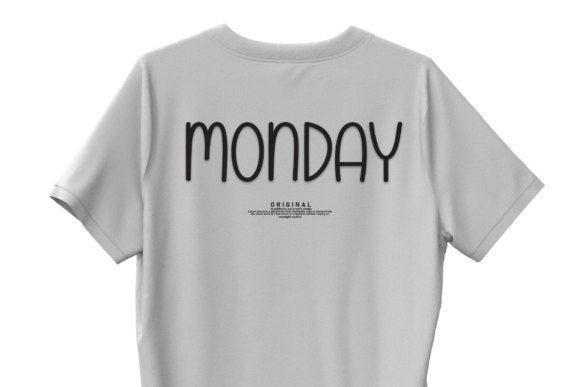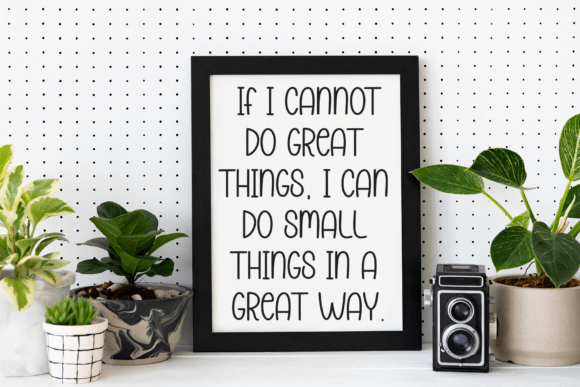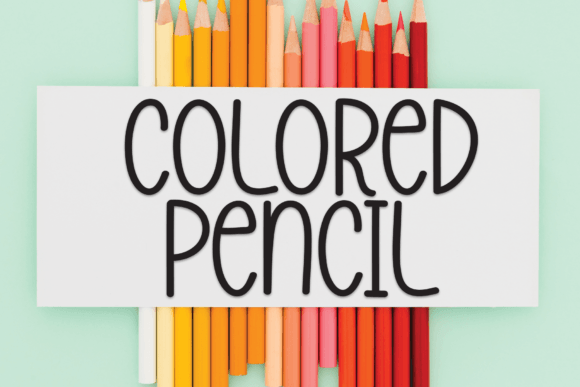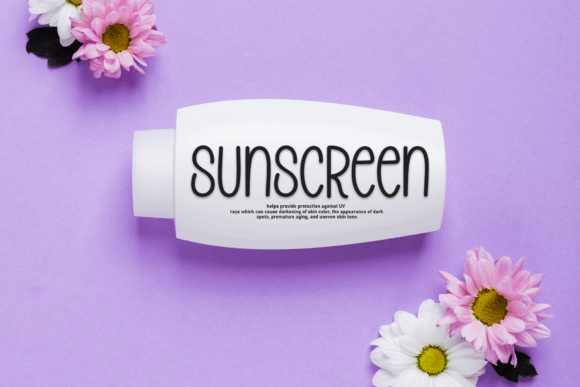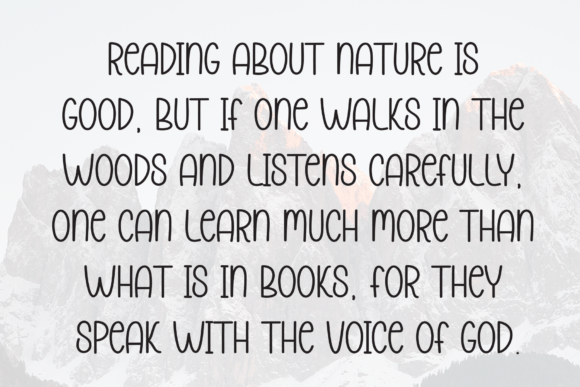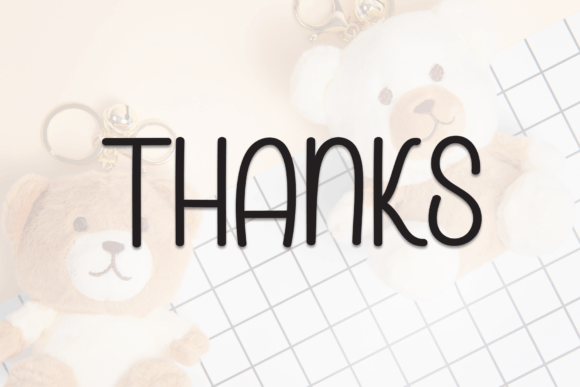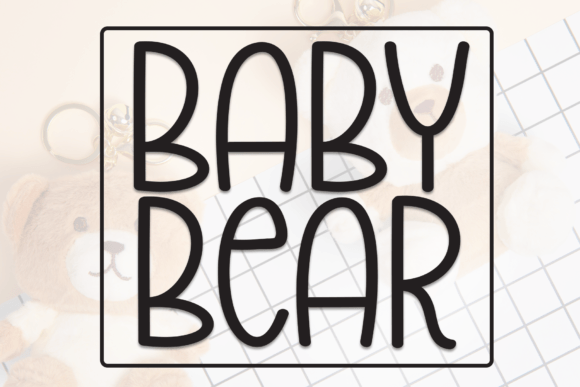
Baby Bear Font: The Sweet and Friendly Handwritten Font for Your Designs
Are you looking for a font that can add a touch of sweetness and friendliness to your designs? Look no further than the Baby Bear Font! This adorable handwritten font is perfect for creating wedding invitations, cards, and other designs that require a fun and playful touch.
What is Baby Bear Font?
Baby Bear Font is a sweet and friendly handwritten font that is designed to bring a smile to your face. Its cute and fun style makes it ideal for a variety of design projects, from wedding invitations and cards to posters, flyers, and more.
Characteristics of Baby Bear Font
The Baby Bear Font has several characteristics that make it stand out from other fonts. Here are a few:
- Handwritten style: The Baby Bear Font has a beautiful, handwritten style that gives it a personal and friendly touch.
- Cute and fun: The font is designed to be cute and fun, making it perfect for designs that require a playful touch.
- Easy to read: Despite its playful style, the Baby Bear Font is easy to read, making it perfect for body text and other applications where legibility is important.
- Versatile: The font is versatile and can be used for a variety of design projects, from wedding invitations and cards to posters, flyers, and more.
Uses of Baby Bear Font
The Baby Bear Font is perfect for a variety of design projects, including:
- Wedding invitations: The font’s sweet and friendly style makes it perfect for wedding invitations, save-the-date cards, and other wedding-related designs.
- Cards: The Baby Bear Font is great for creating birthday cards, thank-you cards, and other types of greeting cards.
- Posters and flyers: The font’s playful style makes it perfect for creating posters and flyers for events, promotions, and other applications.
- Social media graphics: The Baby Bear Font can be used to create social media graphics, such as Facebook posts, Instagram graphics, and Twitter headers.
Why Choose Baby Bear Font?
There are many reasons why you should choose the Baby Bear Font for your design projects. Here are a few:
- Unique style: The Baby Bear Font has a unique style that will set your designs apart from others.
Tips for Using Baby Bear Font
Here are a few tips for using the Baby Bear Font in your designs:
- Use it for headings and titles: The Baby Bear Font is perfect for headings and titles, where its playful style can really shine.
- Pair it with other fonts: The font pairs well with other fonts, so feel free to experiment with different combinations.
- Use it for body text: The Baby Bear Font is easy to read, making it perfect for body text and other applications where legibility is important.
The Baby Bear Font is a sweet and friendly handwritten font that is perfect for adding a touch of fun and playfulness to your designs. Its cute and easy-to-read style makes it ideal for a variety of design projects, from wedding invitations and cards to posters, flyers, and more. With its unique style, ease of use, affordability, and great customer support, the Baby Bear Font is a great choice for designers and crafters.